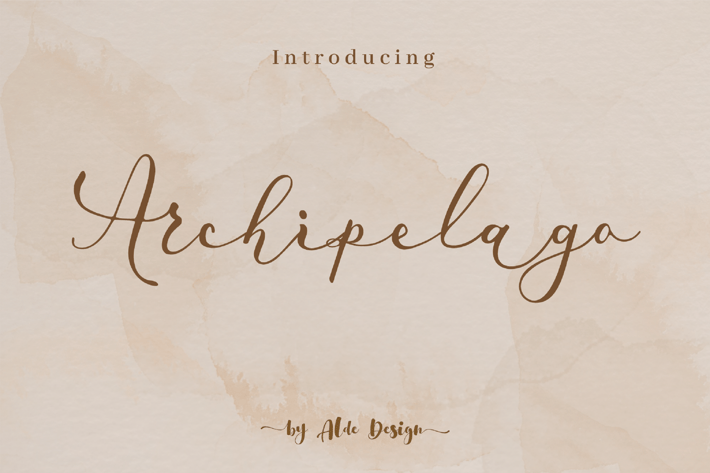
Archipelago International - Christmas Script Font
Archipelago International \\ Modern Script
Archipelago International is a delicate, elegant, and flowing handwritten font. is a stylish calligraphy font that features a varying baseline, smooth line, modern, and with a depth of love. For those of you who need a touch of love and modernity for your designs or branding, it can be used for various purposes such as headings, weddings, invitations, signatures, logos, branding, t-shirt, letterhead, signage, label, news, posters, badges, etc.
It has beautiful and well-balanced characters, and as a result, it matches a wide pool of designs.
Stylish modern handwritten script
Beautiful Swash (Ending tail)
Beautiful Titling (Beginning tail)
Special Ligatures & Alternates